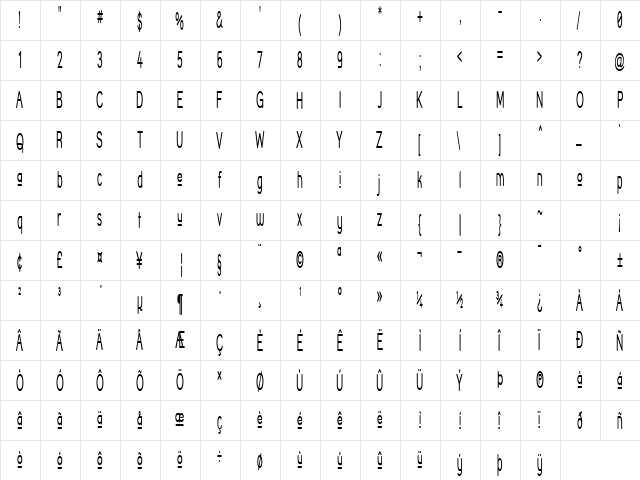
Street Corner Upper Narrower Regular
Design Context for Street Corner Upper Narrower Typeface
Street Corner Upper Narrower offers clean, dependable letterforms without strong stylistic allegiance, making it a practical choice for designers who need flexibility. Its narrow stance lets it pack a punch even in space-constrained designs.